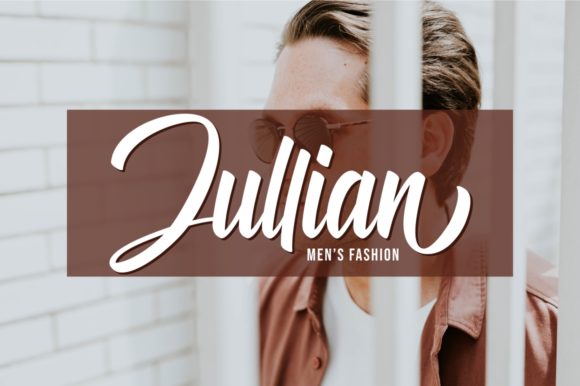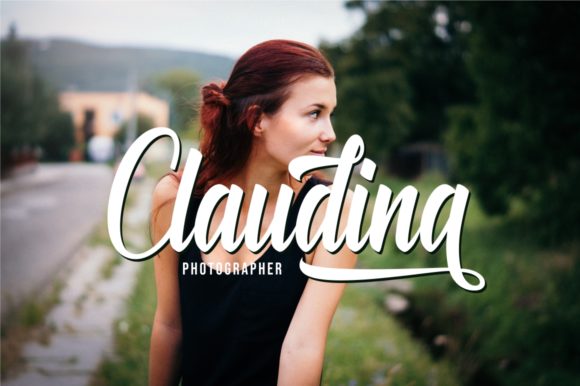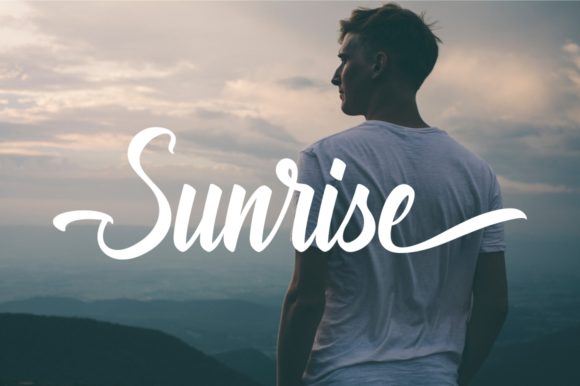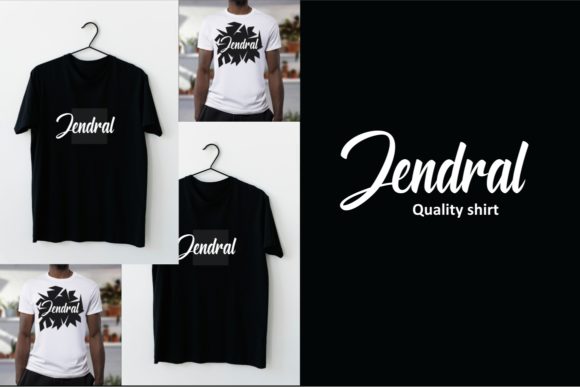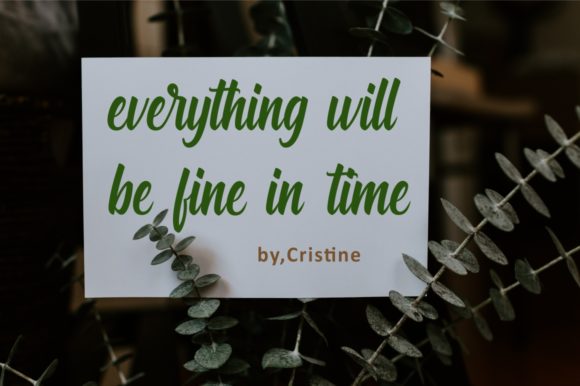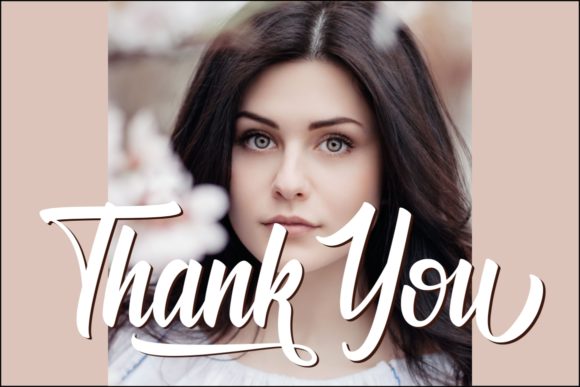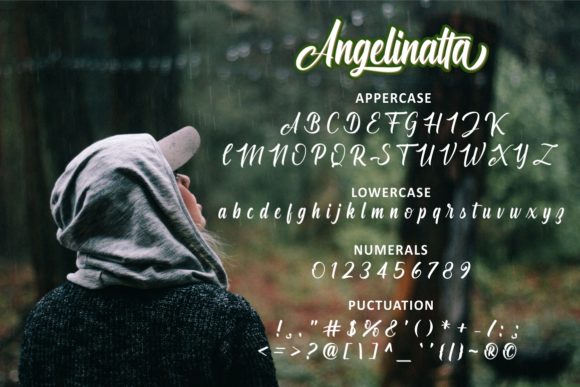
HomeScript FontsAngelinatta Font Script Fonts Angelinatta Font FacebookXPinterestWhatsApp Angelinatta Font Poster 2 Angelinatta Font Poster 3 Angelinatta Font Poster 4 Angelinatta Font Poster 5 Angelinatta Font Poster 6 Angelinatta Font Poster 7 Angelinatta Font Poster 8 About Angelinatta Font Angelinatta is a dazzling and playful handwritten font with a cool twist. Get inspired by its modern elegance. DOWNLOAD ON CREATIVE FABRICAThis font is sold and delivered by Creative Fabrica. Font Canyon may earn a commission if you buy through this link. People also explored Happy Sunday Font Threadbear Font Dakon Font Mentoz Font Spiced Pumpkin The Paradise Font Adisty Font Post It Font Christmas Leaf Font 353 0 TagsAngelinatta Font Previous articleDerick Chetty FontNext articleVintage Font LEAVE A REPLY Cancel reply Comment: Please enter your comment! Name:* Please enter your name here Email:* You have entered an incorrect email address! Please enter your email address here Website: Save my name, email, and website in this browser for the next time I comment. Personal Use Free Whoa Personal Use Free Read more about this font Kinda Sweet Personal Use Free Read more about this font Ontel Personal Use Free Read more about this font Evelyne Personal Use Free Read more about this font BLOG Transform Your Website: Elevate Your Typography with 7 Best Web Font Generators Are you ready to transform your website's typography from ordinary to extraordinary? Great! Today, we're diving into the world of web font generators, which... Modern Sans-Serif Fonts That Brands Love in 2025 Best Fonts for YouTube Videos: Make Your Thumbnails Stand Out Top 10 Handwritten Fonts That Elevate Your Designs